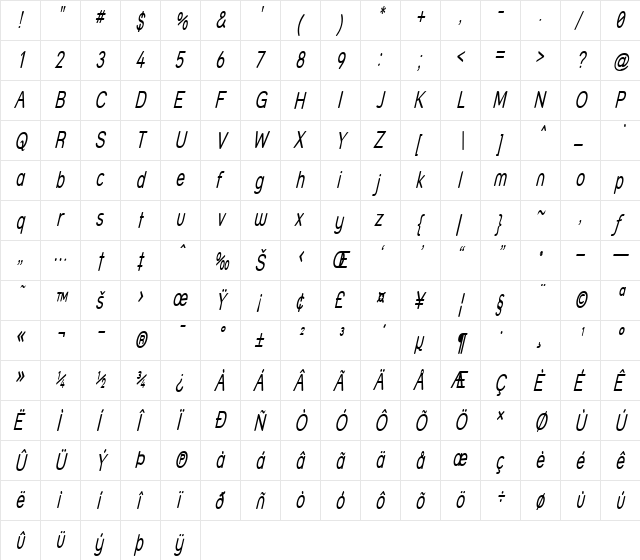
Street - Thin Italic
| Designer | Graham Meade |
Design Context for Street - Thin Typeface
Street - Thin takes a measured approach to typography — its balanced proportions and neutral character make it a reliable workhorse for both digital and print work. Its italic angle brings a sense of urgency and motion to the letterforms. The delicate stroke weight brings airiness and refinement to layouts.